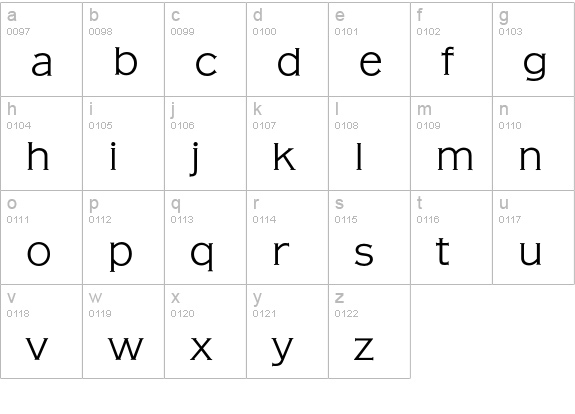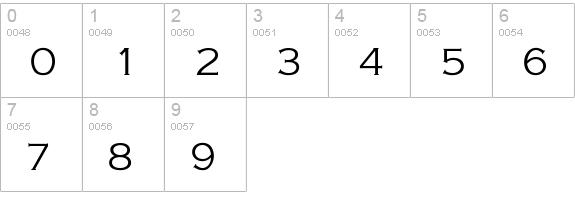
AmericanGothic-Light is a refined, elegant variant in the AmericanGothic typeface family \xE2\x80\x94 well suited to elegant body text, refined sub-headings, and luxury branding.
AmericanGothic-Light font is a sophisticated and modern typeface that exudes elegance and professionalism. Its clean lines and sleek design make it perfect for a wide range of projects, from branding to editorial design. With its light weight, this font is ideal for creating a subtle and refined aesthetic in your work. The best part? AmericanGothic-Light font is completely free to download at FontsMarket.com. This means you can easily access this high-quality typeface without any cost, making it a valuable addition to your font library. Don't miss out on the opportunity to elevate your designs with the timeless beauty of AmericanGothic-Light font.